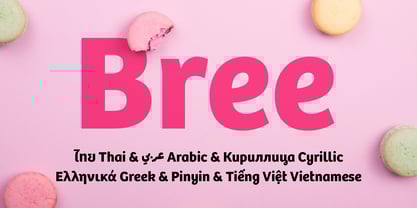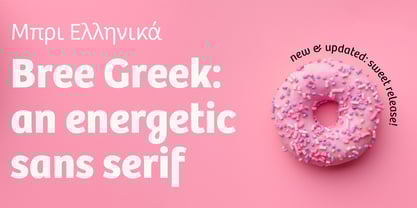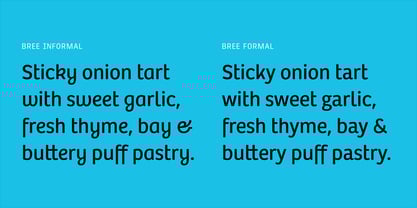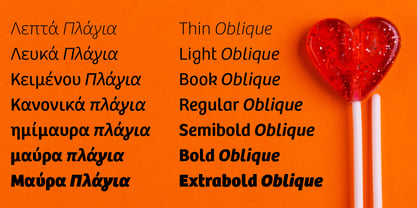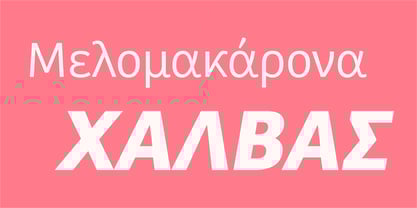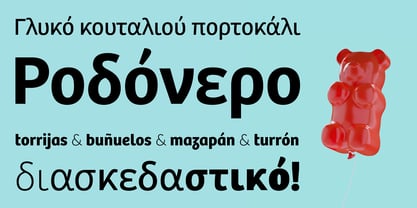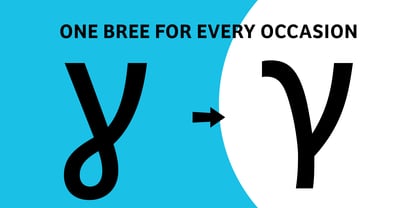
Bree Greek
by TypeTogether
The Bree Greek Font Family was designed by Veronika Burian, José Scaglione, Irene Vlachou and published by TypeTogether. Bree Greek contains 16 styles and family package options. More about this family
The Bree Greek font family is a spry sans serif initiated by Veronika Burian and José Scaglione and completed by Irene Vlachou. Bree Greek delivers a spirited look and feel for branding and headline usage. As an upright italic, Bree Greek shows a pleasant mix of rather unobtrusive capitals with more vivid lowercase letters, giving text a lively appearance.
Bree Greek is clearly influenced by handwriting. As such, some of its most characteristic features are the cursive epsilon, the outstroke curves of diagonals, and its flourished and fluid shapes. Alternates of these letters are available when a more neutral look is desired.
Bree Greek has a touch of cheekiness, a wide stance for each character, and an extra-large x-height. All this adds up to a big personality, so even when set in small text there is no skimming past the words Bree Greek voices.
In 2019, the Bree font family got a huge update. A few shapes were updated or added (the ‘k’ and German capital ‘ß’), two entirely new weights were added (Book and Book Italic), and spacing was perfected. More than that, Vietnamese support was added to Bree Latin, and the Bree Greek and Bree Cyrillic scripts were designed from scratch to parallel the Latin’s tone. Additionally, Bree was designed in variable font format for those who want complete control over the font’s appearance while simultaneously saving digital weight in the form of kilobytes and megabytes. The entire Bree family is in the perfect position for the next digital revolution.
The complete Bree font family, along with our entire catalogue, has been optimised for today’s varied screen uses, and the Latin is included with Bree Greek. Bree has been chosen for such wideranging uses as Breast Cancer Awareness Month in the US, the branding for the country of Peru, and numerous layouts including mobile apps, magazines, newspapers, and books. And be sure to check out Bree Serif, Bree’s energetic and mature slab serif cousin and the perfect companion to the Bree font family.
Designers: Veronika Burian, José Scaglione, Irene Vlachou
Foundry: TypeTogether